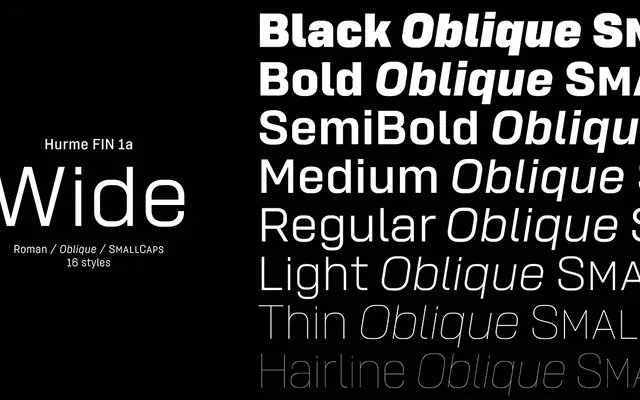
Hurme FIN 1a Wide
The Wide width variant of a large monolinear grotesque family spanning nine widths and eight weights, with obliques and a companion FIN 1b included on purchase.
Hurme FIN 1a Wide is one of nine width variants in the FIN family, a simplified monolinear sans-serif with horizontal stroke terminals, short ascenders and descenders, and optically adjusted obliques. Eight weights run from Hairline to Black, each with a matching oblique, giving 16 styles in this width alone. Purchasing FIN 1a automatically includes corresponding weights of FIN 1b, an alternative cut with angular, monospace-influenced characters and slab-serif details.
Described as a simplified monolinear sans-serif with horizontal stroke terminals, placing it squarely in the grotesque tradition. The monolinear stroke contrast and systematic width variants reinforce this classification.